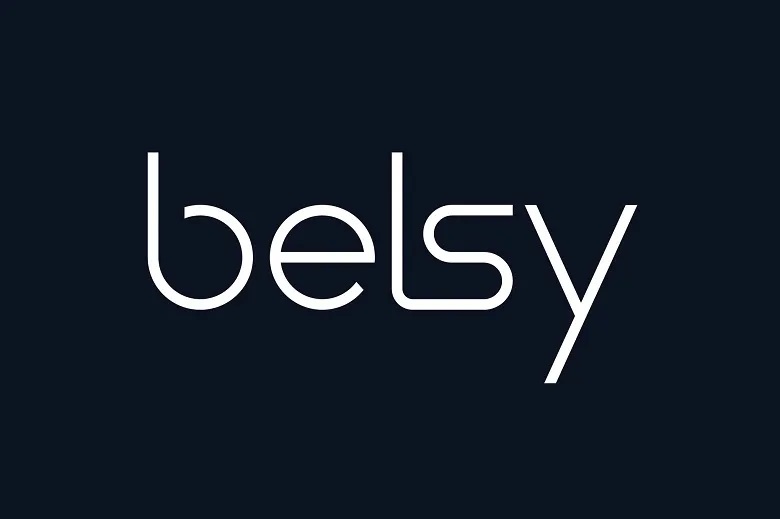
Belsy Font
Belsy Minimalist Font works well for various projects including posters, social media posts, branding and personal work and social media outputs.
Belsy Sans Serif Font